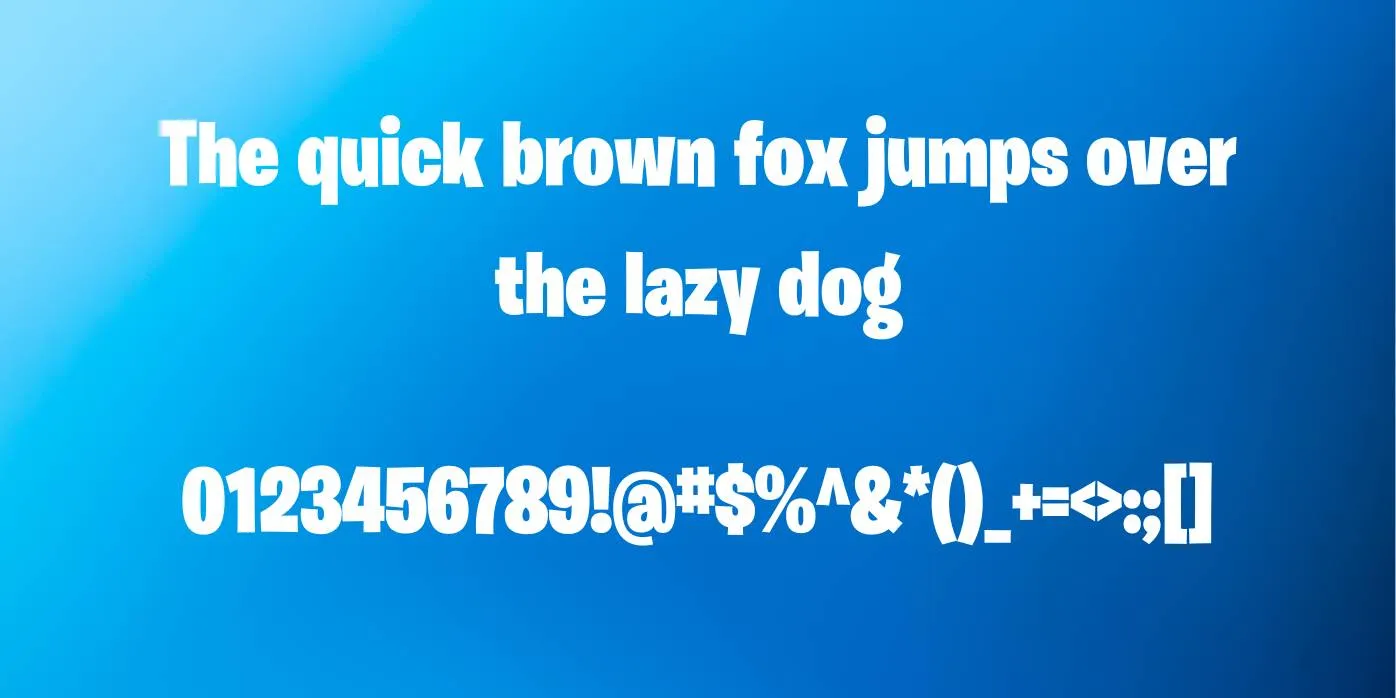
Fortnite Font
Fortnite Font is a very amazing font and can be used to design many different projects. This font is used in a sandbox video game that was designed by Epic Games. It looks like the sans serif texture family with a unique type of alphabet characters. This elegant font has various features and 90 characters, 83 glyphs, and 1000 units per Em.  This font is also used in the Burbank video game Logos which is available in 20 different styles some of and different weights which makes it unique and can be used to make many attractive projects.
It has different characters, symbols, numbers, and capital letters. You can use it for both projects print and digital media. It can be used to design video games and their Logos. It is a very attractive font to design Banners, Posters, flyers, and brochures.
You can make attractive logo designs by using this font. It can also use this font for making animated movie designs. This font is basically designed for video games. To make different types of graphic and website designs you can use this font as well.
Who is the owner of Fortnite Font? It is a very amazing font and you can make attractive logos by using this font. It was designed by Tal Lemin.